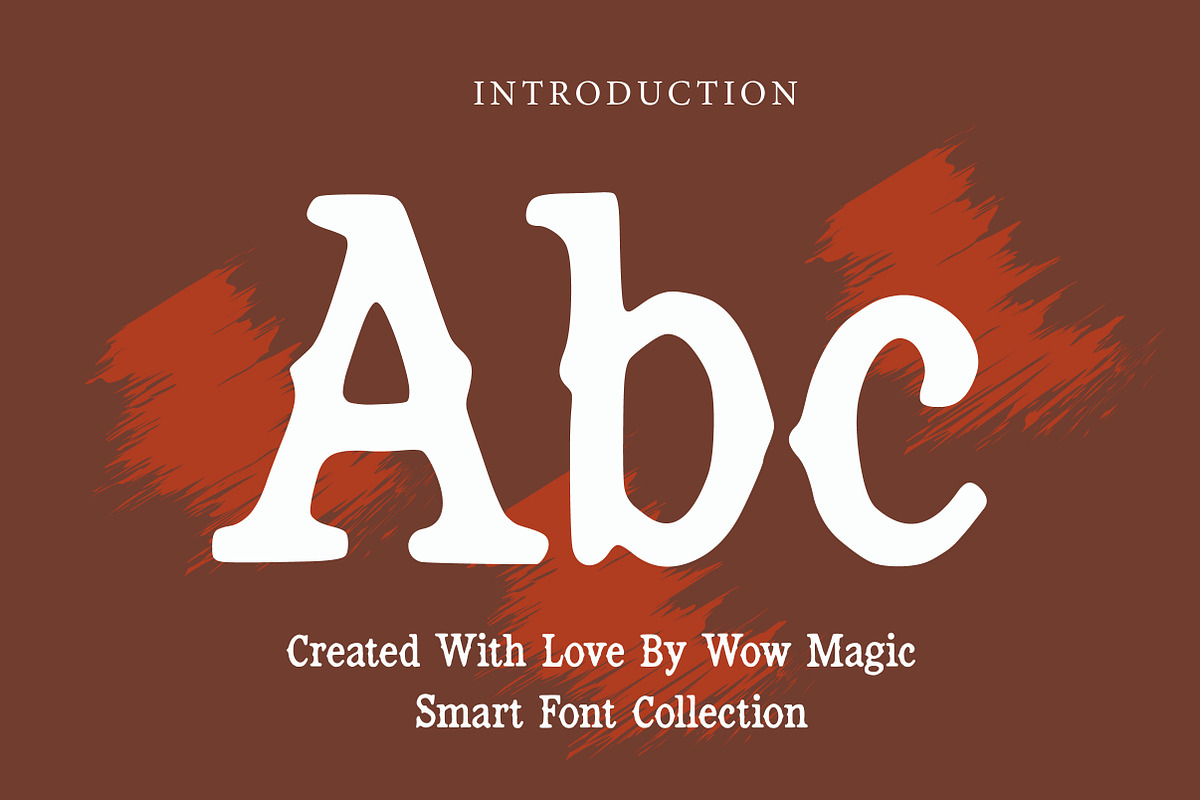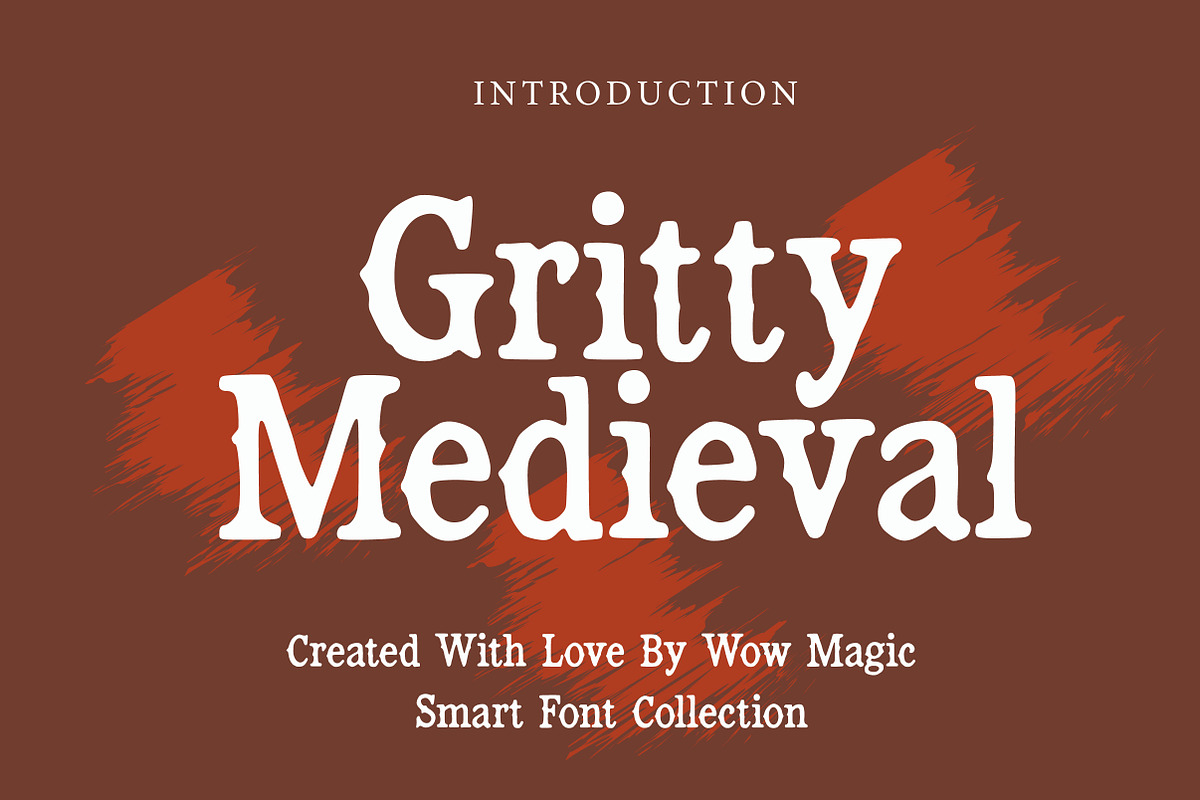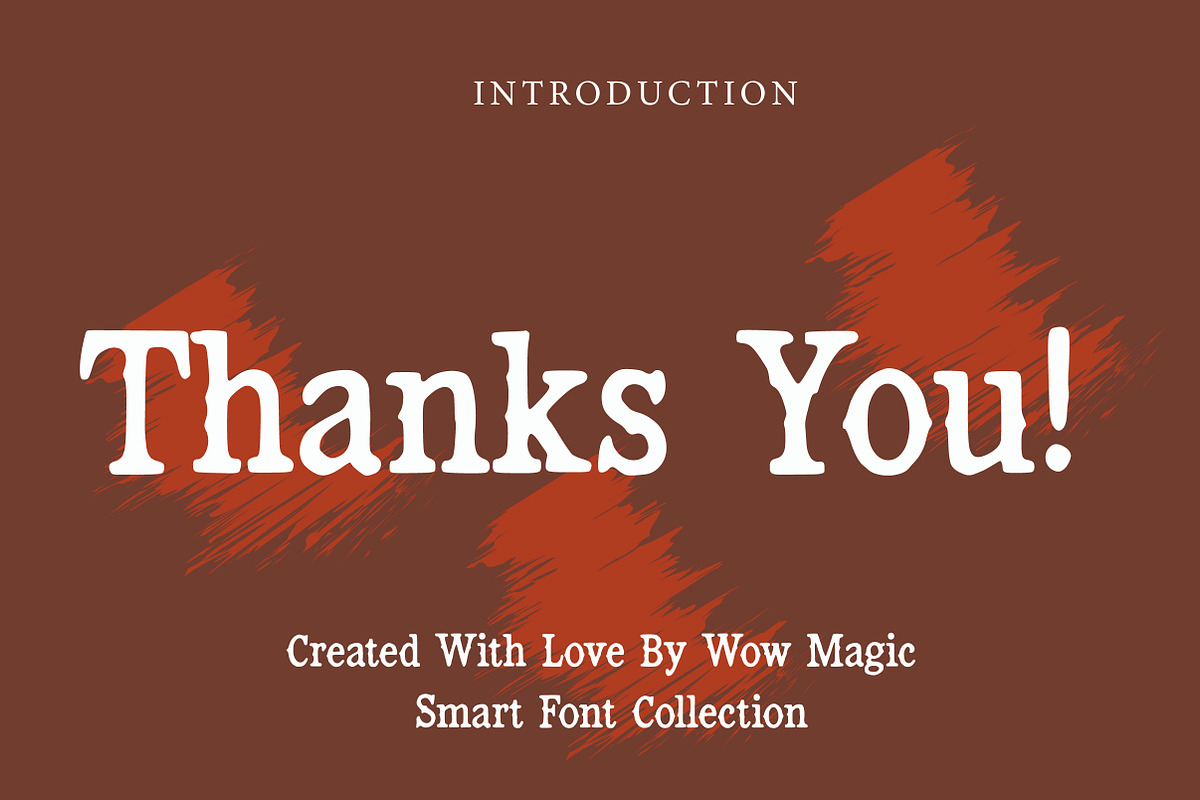
Gritty Medieval
Gritty Medieval is a powerful medieval-inspired display font designed with a bold, rough, and gritty character that captures the atmosphere of historical and fantasy typography. The font features strong strokes, rugged curves, and classic medieval influences that give it an authentic old-world appearance.
This typeface works perfectly for fantasy designs, medieval themes, book covers, game titles, logos, posters, branding, and editorial projects. Its distinctive letterforms bring a dramatic and historic feel to any design, making it ideal for projects that need a vintage, gothic, or fantasy-inspired style.
Whether you're designing fantasy branding, historical posters, gaming titles, or medieval-themed graphics, Gritty Medieval will add a bold and timeless character to your typography.